Best Romantic Fonts 2026: Typography for Love, Nostalgia, and Emotional Design
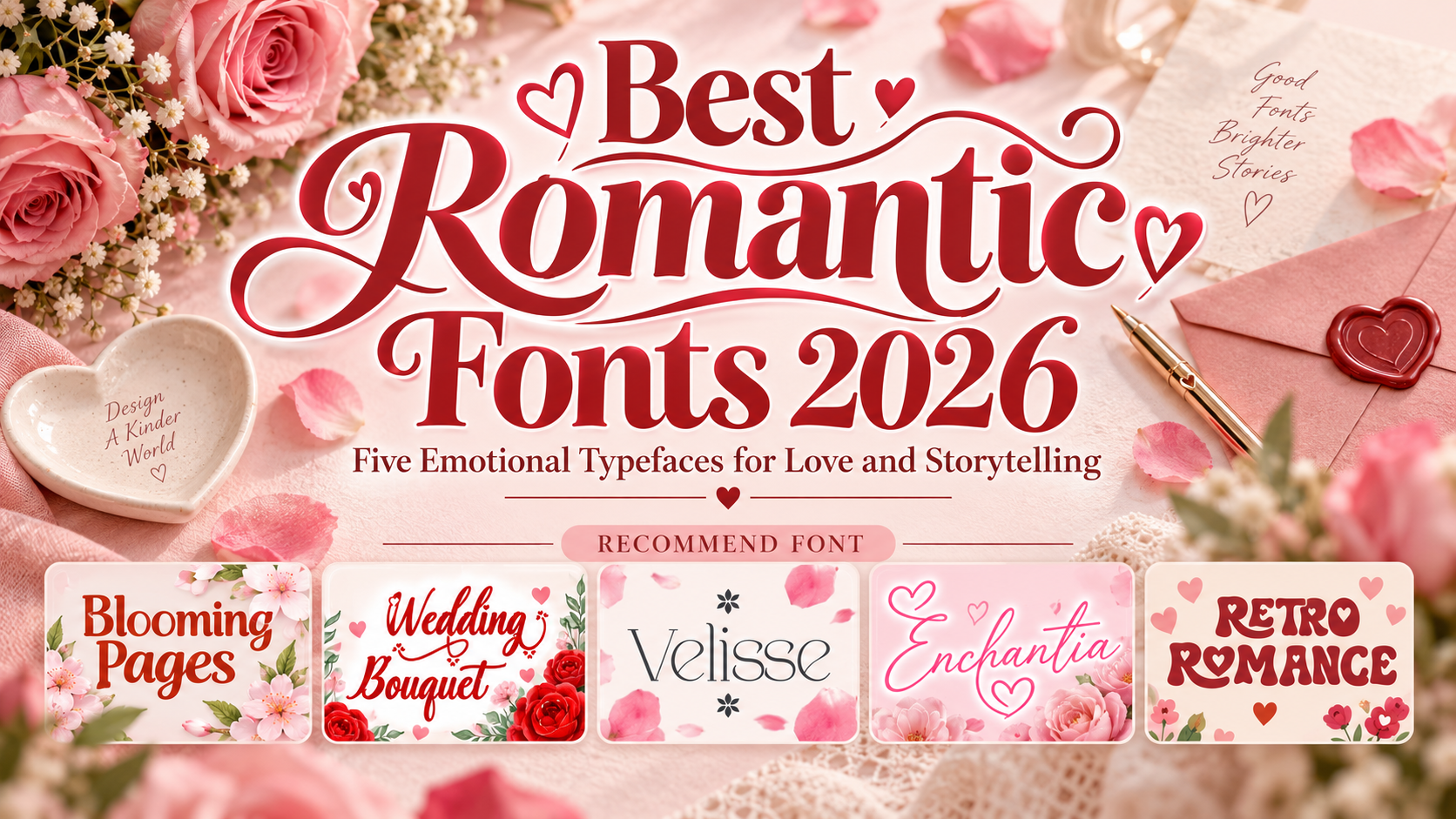
Match the Font to the Emotion
The best romantic fonts 2026 are not limited to delicate scripts. Romantic typography can feel botanical, graceful, nostalgic, joyful, luxurious, or boldly expressive. Before selecting a typeface, decide whether the project should communicate tenderness, celebration, elegance, longing, vintage charm, or playful affection.
Use the expressive font for names, headlines, invitations, packaging titles, or campaign phrases. Pair it with a simpler serif or sans serif for schedules, product details, captions, and longer copy. This creates emotional personality without sacrificing readability.
Romantic type design often uses flowing curves, graceful proportions, alternates, ligatures, soft terminals, or elegant contrast. A wedding identity may need handwritten movement, while a luxury beauty campaign can use a refined serif. A nostalgic Valentine campaign might benefit from rounded retro forms and heart details.
1. Blooming Pages Spring Font
Blooming Pages combines tall, slim serif forms with soft curves, rounded terminals, and decorative alternates that create a botanical romantic personality. Its narrow proportions keep longer names elegant, while ligatures and subtle flourishes add handcrafted warmth without making the design overly ornate.
PROS: Graceful silhouette, botanical personality, narrow proportions, decorative alternates.
BEST FOR: Wedding brands, flower shops, beauty studios, book covers, candle labels, invitations, and boutique packaging.
2. Wedding Bouquet Love Wedding Font
Wedding Bouquet is a cheerful romantic script with a personal, handwritten feeling. Its dainty movement, glyphs, and ligatures make short names and phrases feel intimate, giving love-centered projects warmth rather than formal luxury.
PROS: Personal script character, joyful mood, ligatures, strong wedding association.
BEST FOR: Wedding invitations, greeting cards, bridal stationery, couple gifts, romantic quotes, and personalized branding.
3. Velisse Feminine Serif Font
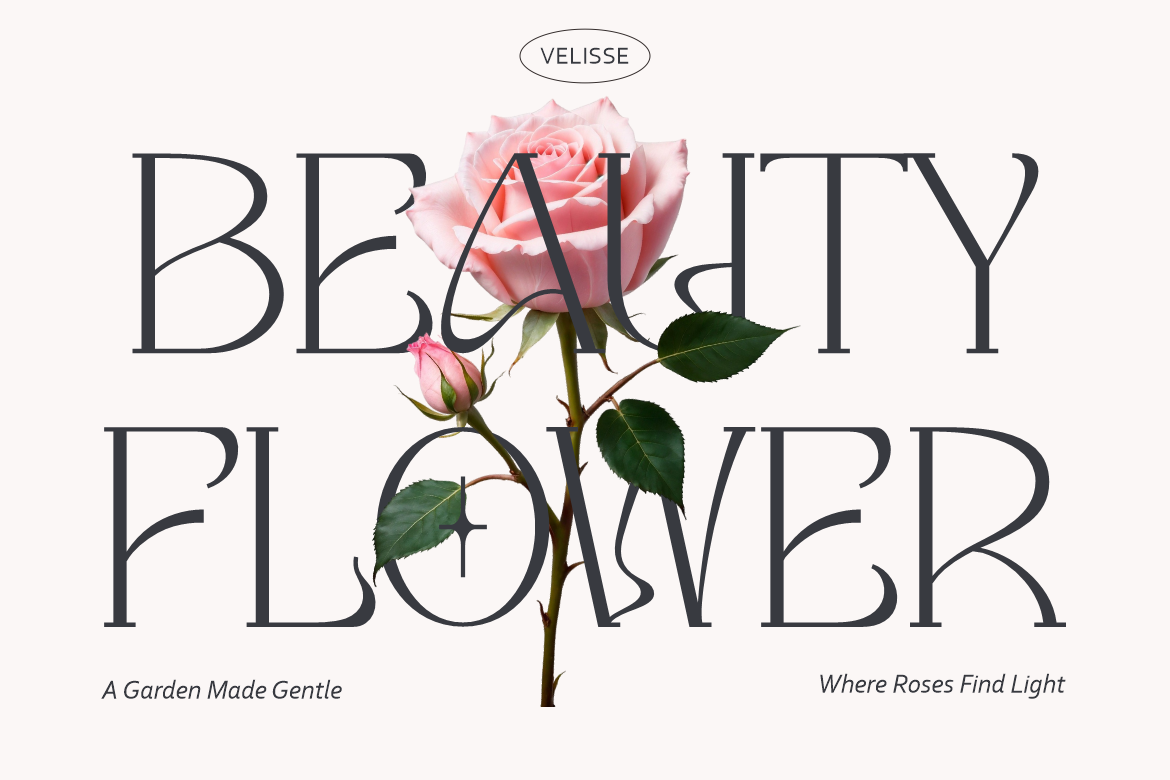
Velisse offers a polished interpretation of romantic typography through a graceful serif structure, open rounded counters, and restrained decorative details. Carefully measured spacing keeps headlines refined rather than crowded, allowing romance to feel mature, contemporary, and premium.
PROS: Refined spacing, open counters, elegant silhouette, premium character.
BEST FOR: Fashion, skincare, beauty, weddings, editorial titles, boutique identities, and luxury packaging.
4. Enchantia Romantic Love Script Font
Enchantia uses fluid lines and graceful flourishes to turn words into expressive romantic gestures. Its movement brings warmth to names and short messages, making it particularly effective for projects built around affection, celebration, or personal storytelling.
PROS: Fluid movement, graceful flourishes, emotional personality, elegant script atmosphere.
BEST FOR: Romantic logos, invitations, greeting cards, wedding stationery, posters, and heartfelt social content.
5. Retro Romance Retro Love Font
Retro Romance brings a different romantic mood through groovy 1970s-inspired bubble forms, heart cutouts, love-themed alternates, ligatures, swashes, and soft curves. Instead of quiet elegance, it communicates affection with confidence and nostalgia, making it especially strong in bold display applications.
PROS: Bold retro presence, heart details, ligatures, playful nostalgia.
BEST FOR: Valentine campaigns, couple merchandise, nostalgic packaging, social quotes, posters, and youthful lifestyle branding.
Using Romantic Typography Effectively
Give expressive lettering enough space to remain the focal point. Negative space, simple photography, restrained ornament, and limited color can make a romantic font feel more sophisticated. For motion graphics, animate one recognizable detail, such as a swash drawing itself or a word appearing like handwriting, instead of moving every element.
Comparison
| Font | Main Mood | Strongest Application |
|---|---|---|
| Blooming Pages | Botanical and graceful | Weddings and boutique branding |
| Wedding Bouquet | Intimate and joyful | Invitations and stationery |
| Velisse | Refined and premium | Fashion and beauty |
| Enchantia | Flowing and emotional | Romantic storytelling |
| Retro Romance | Nostalgic and playful | Valentine campaigns |
Common Mistakes
The first mistake is assuming every romantic project needs a script font. Scripts can create intimacy, but excessive flourishes become difficult to read on small packaging, mobile posts, or long names. A refined serif such as Velisse or a botanical display face such as Blooming Pages may communicate romance more effectively when the project needs structure.
Another mistake is combining too many emotional signals at once. Floral illustrations, heart icons, handwritten scripts, pink gradients, ribbons, and decorative borders can quickly make a layout feel generic. Choose one dominant romantic language and support it with restrained color, imagery, and secondary typography.
Use these PutraCetol Studio fonts as storytelling tools rather than simple decoration. When typography, color, imagery, spacing, and emotion support the same idea, romantic design can feel personal, memorable, and contemporary.